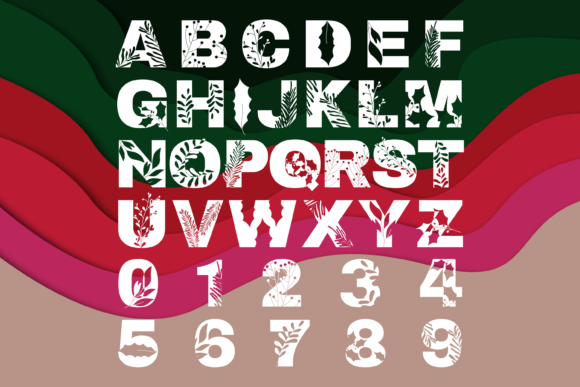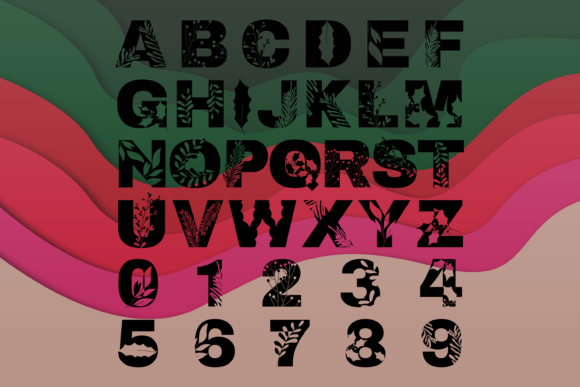
Introduction to Merry Floral Font
Merry Floral is an incredibly cool and festive decorative font.
Whether you use it for cartoon-related designs, children games, or just any creation that requires a lovely touch, this font will be an amazing choice .
Key Features of Merry Floral Font
Why Choose Merry Floral Font?